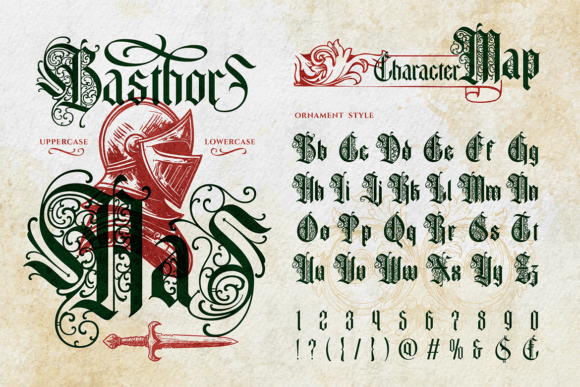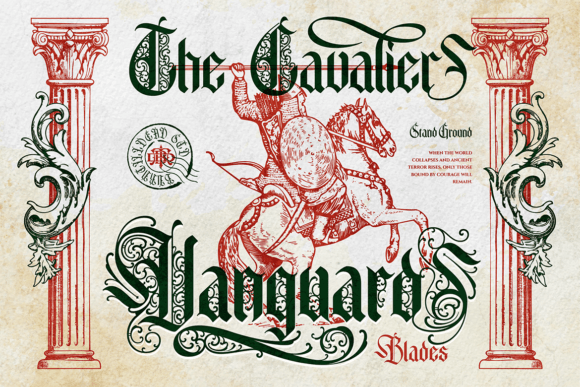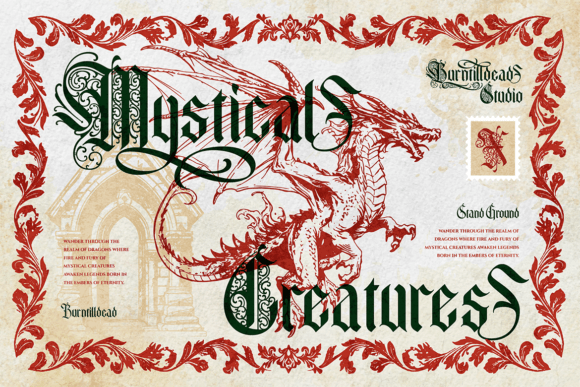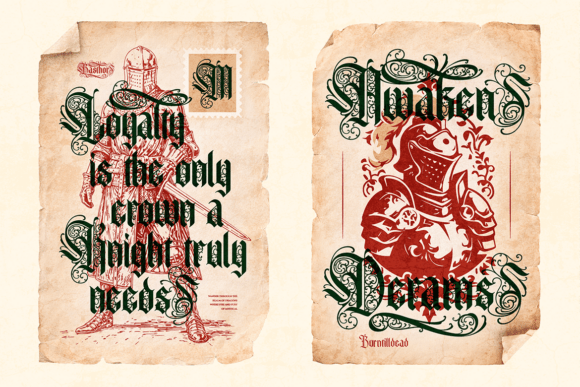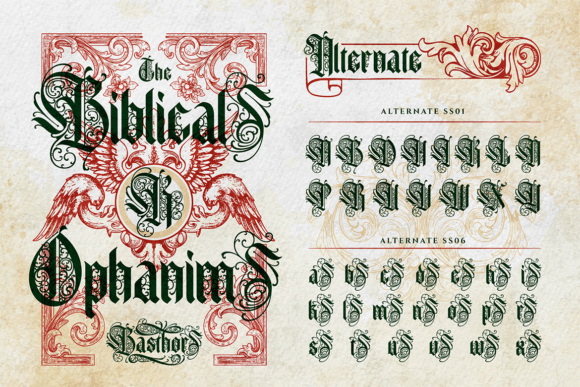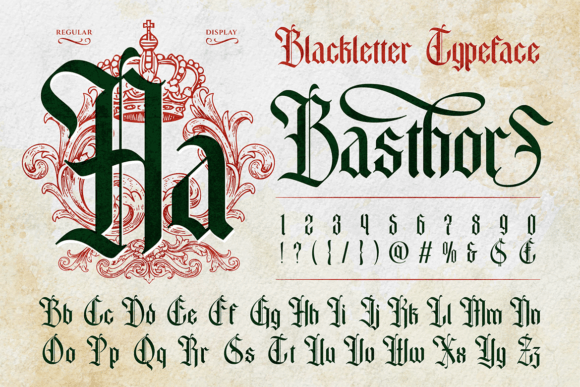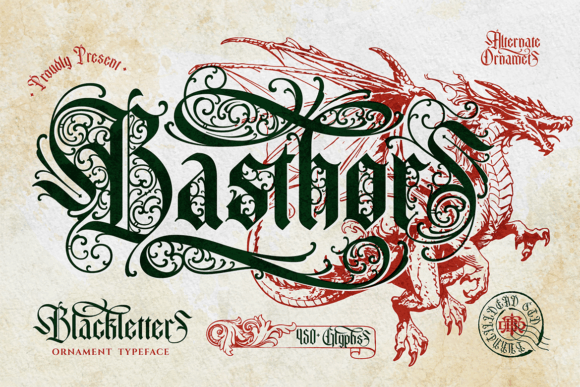
Unleash the Power of Basthors Font: A Masterpiece of Gothic Elegance
In the realm of typography, few fonts command attention like Basthors, a breathtaking ornamental blackletter font that seamlessly merges gothic power with delicate artistry. This stunning typeface is a true masterpiece of detail, boasting intricate floral filigree and sprawling scrollwork embedded within its classic heavy strokes. Whether you’re a designer, craftsperson, or simply a connoisseur of fine typography, Basthors is an exceptional choice for projects that demand a sense of ancient myth and regal complexity.
The Perfect Blend of Gothic Power and Delicate Artistry
Basthors font is a symphony of contrasting elements, harmoniously blending the raw energy of gothic typography with the refined elegance of intricate artistry. Its classic heavy strokes provide a solid foundation, while the embedded floral filigree and scrollwork add a level of sophistication and refinement. This unique fusion makes Basthors an ideal choice for projects that require a sense of drama, mystery, and luxury.
Ideal Applications for Basthors Font
Basthors font is a versatile typeface with a wide range of applications, including:
- High-Fantasy Book Covers: Transport your readers to a realm of magic and wonder with Basthors’ majestic, otherworldly aesthetic.
- Metal Band Branding: Unleash the raw energy of your metal band with Basthors’ bold, gothic-inspired typography.
- Elaborate Tattoo Designs: Add a touch of ancient mysticism to your tattoo designs with Basthors’ intricate, scrollwork-embellished letters.
- Vintage Heraldry: Embody the grandeur and tradition of vintage heraldry with Basthors’ regal, ornate typography.
Unforgettable Visual Impact
When your project demands a sense of drama and visual impact, Basthors delivers. Its intricate details and classic heavy strokes combine to create a truly unforgettable aesthetic that will leave a lasting impression on your audience. Whether you’re designing a book cover, logo, or promotional material, Basthors font is sure to elevate your project to new heights.
What Sets Basthors Apart
So, what makes Basthors font so unique? Here are just a few key features that set it apart from other typefaces:
- Intricate Floral Filigree: Delicate, swirling patterns that add a touch of elegance and refinement to your designs.
- Sprawling Scrollwork: Ornate, curved lines that create a sense of movement and energy.
- Classic Heavy Strokes: Bold, sturdy letterforms that provide a solid foundation for your designs.
- Gothic Inspiration: A nod to the raw power and mystery of gothic typography.
Tips for Working with Basthors Font
To get the most out of Basthors font, here are a few tips to keep in mind:
- Experiment with Size: Basthors font looks stunning at large sizes, but don’t be afraid to experiment with smaller sizes to add a touch of elegance to your designs.
- Play with Color: Basthors font looks striking in bold, metallic colors, but feel free to experiment with different hues and textures to find the perfect fit for your project.
- Combine with Other Fonts: Basthors font pairs beautifully with simpler, sans-serif fonts – try combining them to create a striking contrast.
| Font Name | Basthors Font |
| Author | Burntilldead |
In conclusion, Basthors font is a true masterpiece of typography, offering a unique blend of gothic power and delicate artistry. With its intricate floral filigree, sprawling scrollwork, and classic heavy strokes, Basthors is the ultimate choice for designers and craftspersons looking to add a touch of ancient myth and regal complexity to their projects. Whether you’re working on a high-fantasy book cover, metal band branding, or vintage heraldry, Basthors font is sure to deliver an unforgettable visual impact.